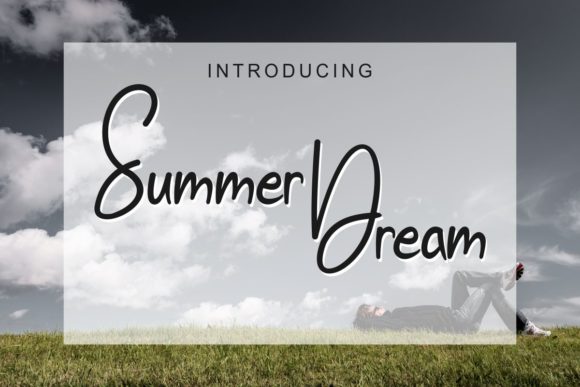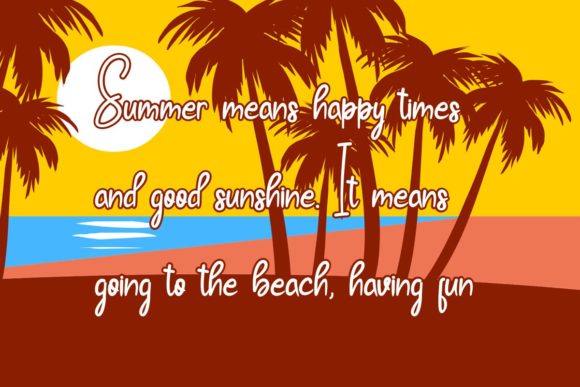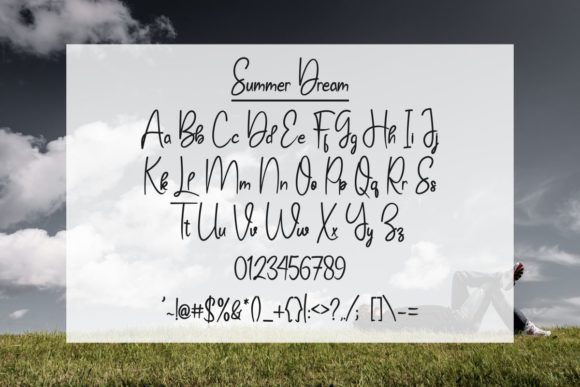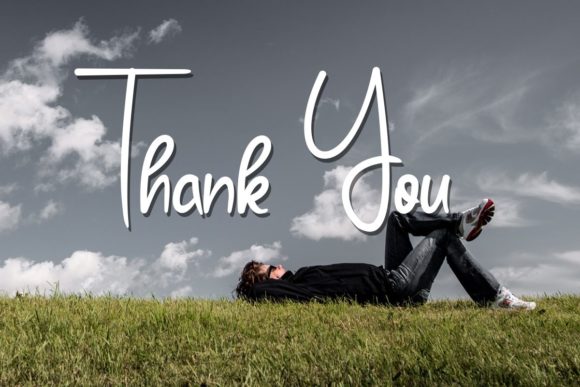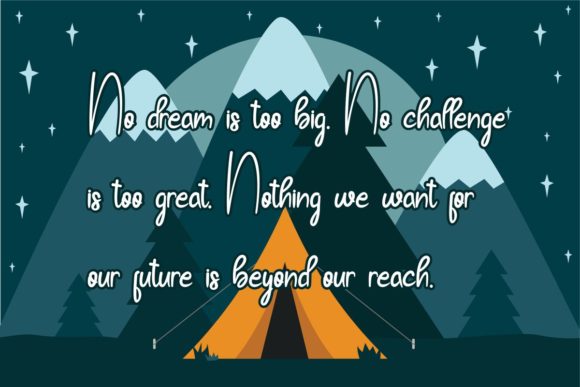
Summer Dream Font
About Summer Dream Font
Summer Dream is a sweet and friendly handwritten font. Its natural and unique style makes it incredibly fitting to a large pool of designs.